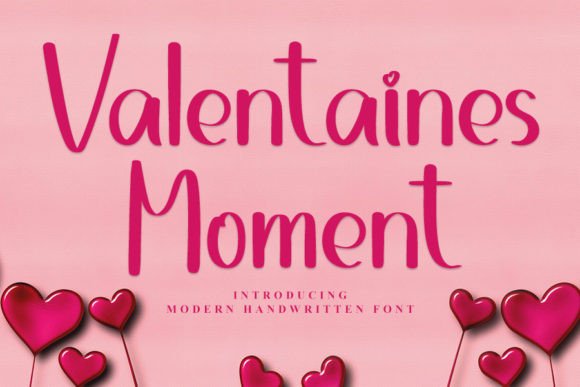
Step into the realm of romance with Valentaines Moment, a script font that captures the essence of love and affection. Designed by the talented Kongsi.Co, this font exudes elegance and beauty, making it the perfect choice for creating heartfelt designs.
Valentaines Moment's graceful curves and intricate details will add a touch of sophistication to your projects, evoking emotions and leaving a lasting impression. Whether you're crafting a love letter, designing a wedding invitation, or creating a heartfelt gift, this font will elevate your words and make them shine.
Immerse yourself in the world of love and let Valentaines Moment be your guide. Its timeless style will ensure that your designs remain enchanting for years to come. Embrace the magic of this font and let your creativity flourish.